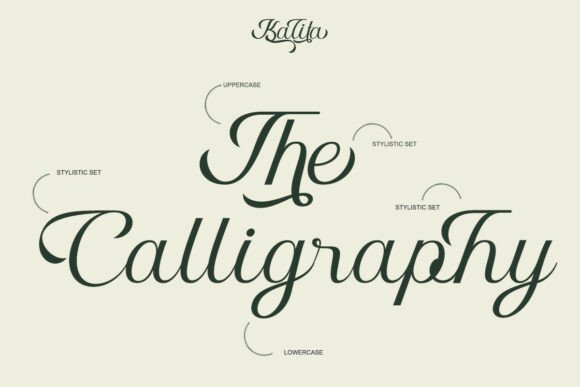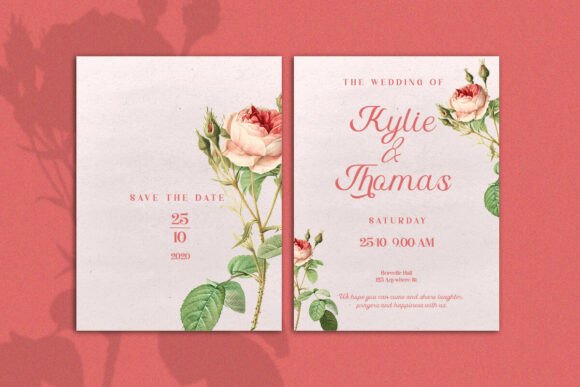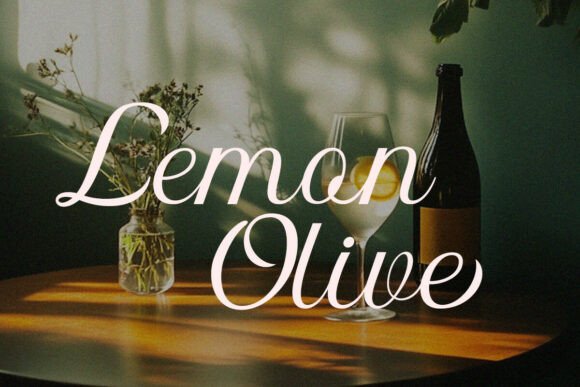
Introduction to Kalita Font
Kalita is a graceful script font with flowing strokes, refined curves, and elegant swashesβ€”designed to bring a romantic and luxurious touch to any project.
Its smooth, calligraphic style makes it a perfect fit for wedding stationery, high-end branding, product packaging, social media graphics, and elegant invitations The letterforms are balanced and expressive, with alternate characters that offer a custom, handcrafted feel.